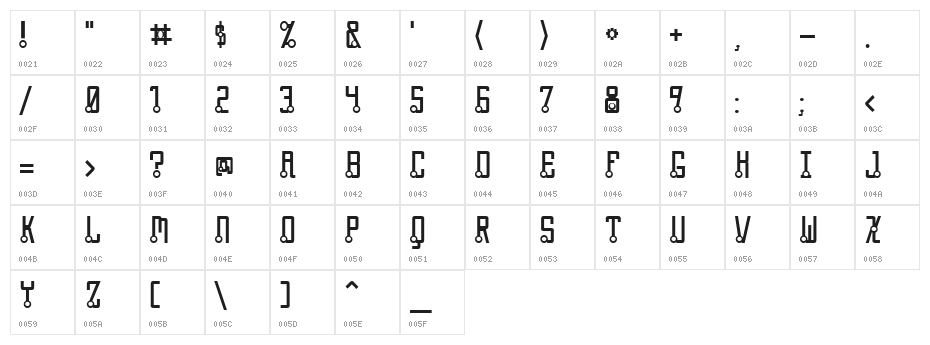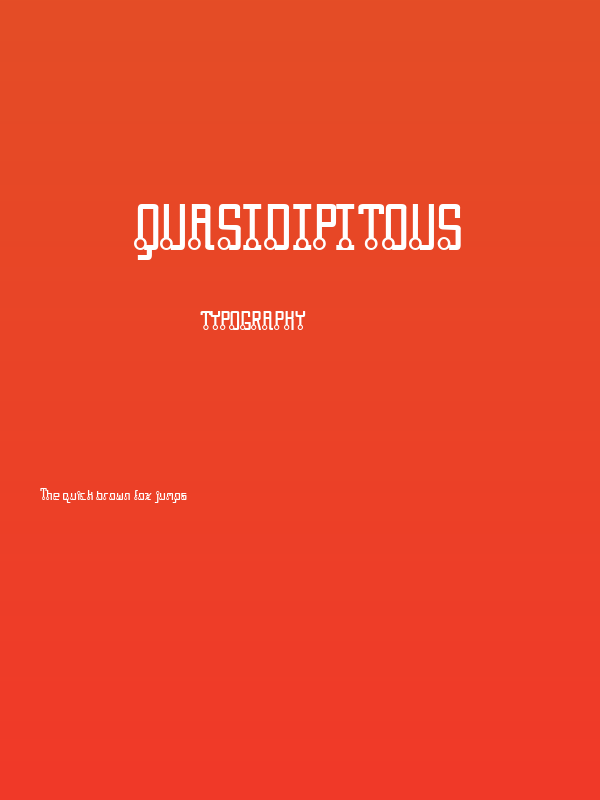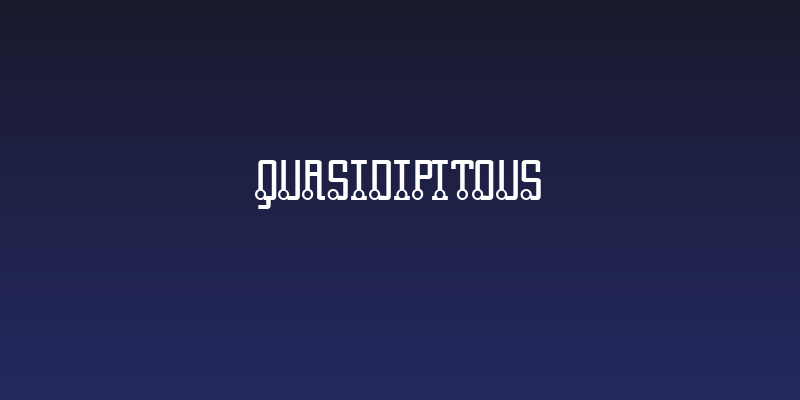
Quasidipitous Font
Quasidipitous Description
This font features a unique and futuristic design, characterized by its geometric shapes and circular elements integrated into each character. The uppercase and lowercase letters maintain a consistent style, with bold lines and rounded terminals that create a distinct visual rhythm. The numbers and special characters follow the same design principles, ensuring uniformity across all glyphs. The font's structure is both modern and playful, making it suitable for creative and innovative projects.
| Use Case | Logos, Posters, Headlines |
| Proposed Projects | Ideal for sci-fi themed designs, tech branding, video game interfaces, and modern art projects. |